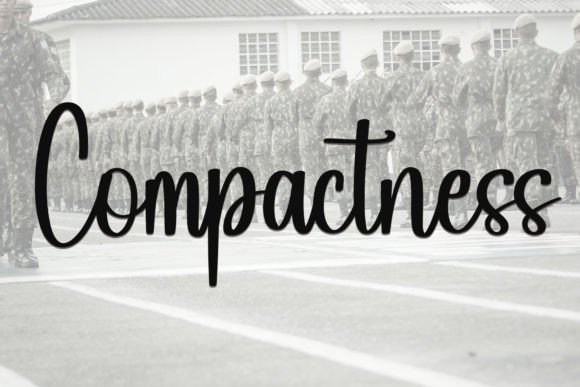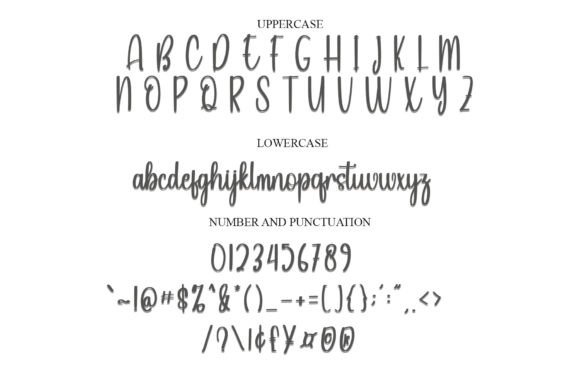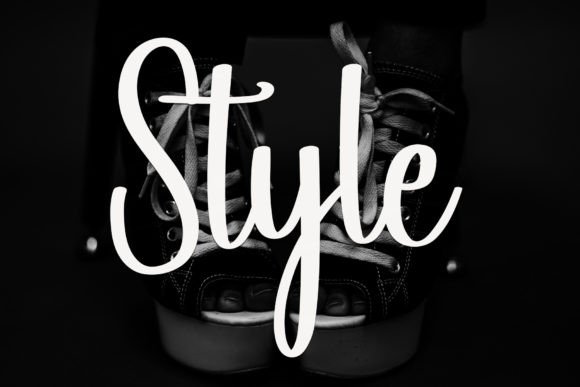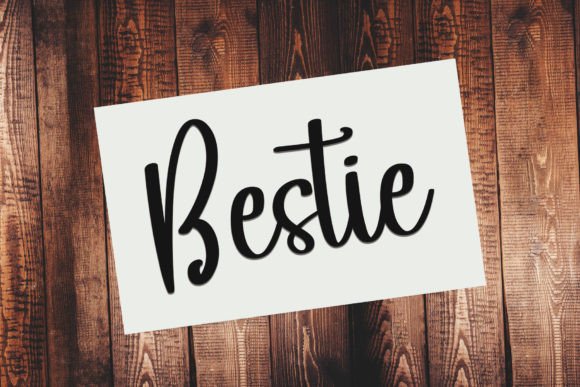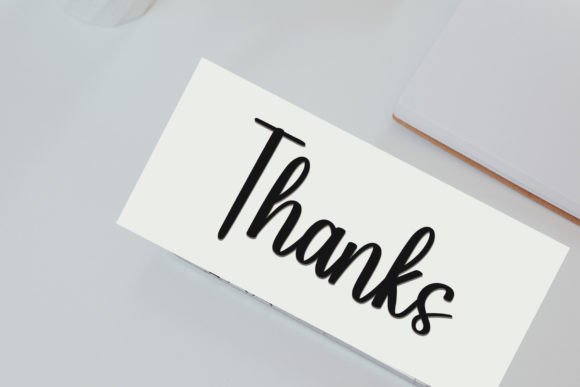
Bushy Font: Elevate Your Designs with Elegance and Timeless Style
Are you on the hunt for a font that exudes elegance, sophistication, and a touch of timeless charm? Look no further than the Bushy Font, a beautiful handwritten typeface that is sure to capture your heart. With its incredibly distinct style and versatile appeal, Bushy is the perfect addition to your design arsenal, whether you’re working on a personal project or a professional endeavor.
The Beauty of Bushy Font
Bushy Font is described by its elegant touch, which sets it apart from other handwritten fonts. Its neat and beautiful appearance makes it an excellent choice for designers and crafters who want to add a touch of sophistication to their work. The font’s unique style is characterized by its flowing lines, subtle curves, and delicate connections, creating a sense of movement and fluidity.
One of the standout features of Bushy Font is its timeless appeal. Unlike trendy fonts that may quickly go out of style, Bushy has a classic quality that ensures it will remain relevant for years to come. Its versatility allows it to be used in a wide range of design applications, from wedding invitations and branding materials to digital products and social media graphics.
Why Choose Bushy Font?
So, what makes Bushy Font an excellent choice for designers and crafters? Here are just a few reasons why you might fall in love with this beautiful typeface:
- Elegant and sophisticated: Bushy Font exudes elegance and refinement, making it perfect for high-end designs and luxury brands.
- Timeless appeal: Its classic style ensures that Bushy will remain relevant for years to come, saving you the hassle of constantly updating your font library.
- Versatile: Bushy Font can be used in a wide range of design applications, from print materials to digital products.
- Easy to read: Despite its elegant appearance, Bushy Font is incredibly legible, making it perfect for body text and captions.
- Unique: Bushy Font has a distinct style that sets it apart from other handwritten fonts, ensuring your designs stand out from the crowd.
How to Use Bushy Font in Your Designs
Now that you’ve fallen in love with Bushy Font, it’s time to explore how to incorporate it into your designs. Here are a few ideas to get you started:
- Wedding invitations and stationery: Bushy Font is perfect for creating elegant and sophisticated wedding invitations, save-the-dates, and stationery.
- Branding and packaging: Use Bushy Font to create luxurious branding materials, such as business cards, letterheads, and packaging.
- Digital products: Bushy Font can be used to create stunning digital products, such as e-books, workbooks, and social media graphics.
- Signage and displays: Bushy Font is an excellent choice for creating eye-catching signage and displays, whether for a retail store, restaurant, or event.
Tips for Getting the Most Out of Bushy Font
To ensure you get the most out of Bushy Font, here are a few tips to keep in mind:
- Experiment with font sizes: Bushy Font looks great in a variety of font sizes, from large headings to smaller body text.
- Play with colors: Bushy Font can be used with a range of colors, from classic black and white to bold and bright hues.
- Mix and match: Combine Bushy Font with other fonts to create stunning contrast and visual interest.
In conclusion, Bushy Font is a beautiful handwritten typeface that is sure to elevate your designs with its elegant touch and timeless style. With its versatility, legibility, and unique appeal, Bushy is an excellent addition to any design library. So why not fall in love with Bushy Font today and create spectacular designs that leave a lasting impression?